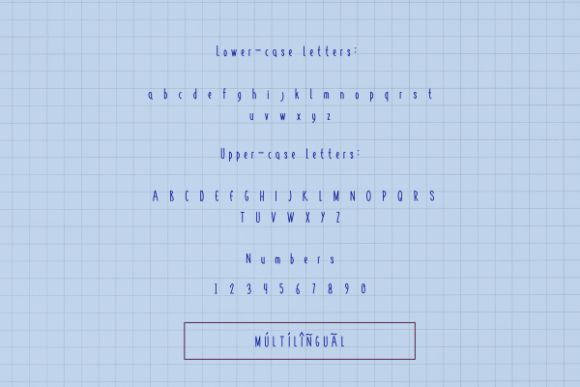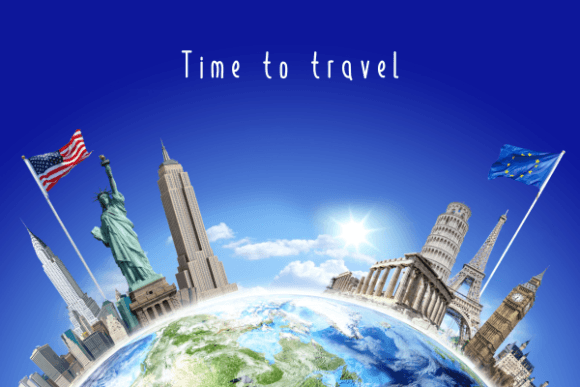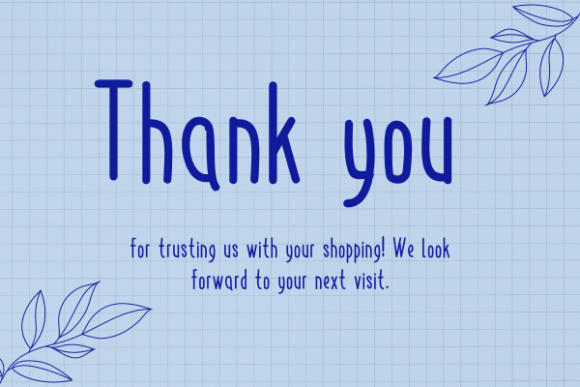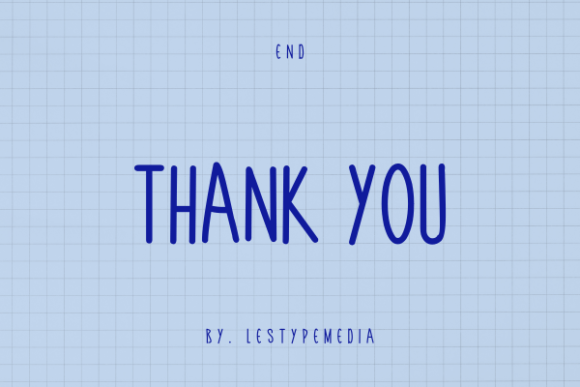
Introducing Arterias School Font: The Perfect Addition to Your Design Arsenal
Are you tired of using the same old fonts in your designs? Look no further! Arterias School Font is here to shake things up and add a dash of joy to your creative projects. This cute and unique display font is sure to make your designs stand out from the crowd.
What is Arterias School Font?
Arterias School Font is a display font that boasts a playful and whimsical design. Its unique and quirky style makes it perfect for adding a touch of personality to your designs. Whether you’re working on a project for a children’s brand, a crafty DIY project, or simply want to add some visual interest to your social media graphics, Arterias School Font is the perfect choice.
Key Features of Arterias School Font
- Cute and Unique Design: Arterias School Font features a one-of-a-kind design that’s sure to capture attention.
- Playful and Whimsical: This font is perfect for projects that require a dash of fun and personality.
- Display Font: Arterias School Font is designed specifically for display purposes, making it perfect for headlines, titles, and other attention-grabbing elements.
- Easy to Read: Despite its playful design, Arterias School Font is easy to read, making it perfect for use in a variety of contexts.
How to Use Arterias School Font in Your Designs
Arterias School Font is incredibly versatile and can be used in a variety of design contexts. Here are a few ideas to get you started:
- Children’s Branding: Arterias School Font is perfect for children’s brands, including logos, packaging, and marketing materials.
- Crafty DIY Projects: Add a touch of personality to your crafty DIY projects, such as handmade cards, invitations, and decorations.
- Social Media Graphics: Use Arterias School Font to add visual interest to your social media graphics, including Facebook posts, Instagram stories, and Twitter headers.
- Party Decorations: Create custom party decorations, including banners, garlands, and invitations, using Arterias School Font.
Tips for Getting the Most Out of Arterias School Font
Here are a few tips for getting the most out of Arterias School Font:
- Use it Sparingly: Arterias School Font is a display font, so it’s best to use it sparingly to add emphasis and visual interest to your designs.
- Experiment with Colors: Arterias School Font looks great in a variety of colors, so don’t be afraid to experiment and find the perfect hue for your design.
- Pair it with Other Fonts: Arterias School Font pairs well with a variety of other fonts, so feel free to get creative and experiment with different combinations.
Arterias School Font is a unique and playful display font that’s sure to add a dash of joy to your designs. With its cute and quirky design, ease of use, and versatility, it’s the perfect addition to your design arsenal. So why wait? Download Arterias School Font today and start creating designs that stand out from the crowd!